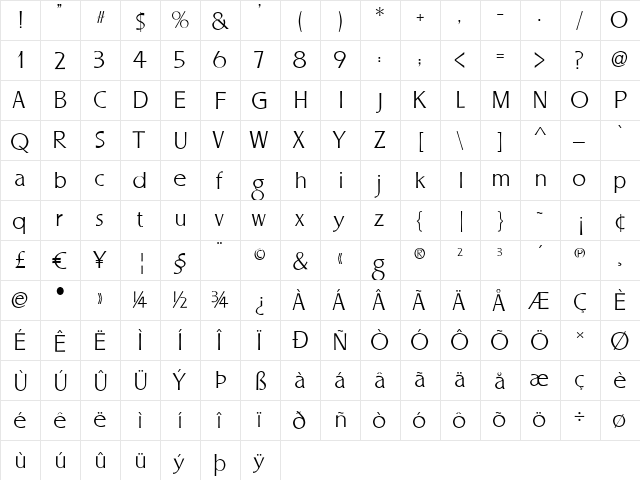
LHF Stevens Percepta BETA Regular
Design Context for LHF Stevens Percepta BETA Typeface
LHF Stevens Percepta BETA offers clean, dependable letterforms without strong stylistic allegiance, making it a practical choice for designers who need flexibility.